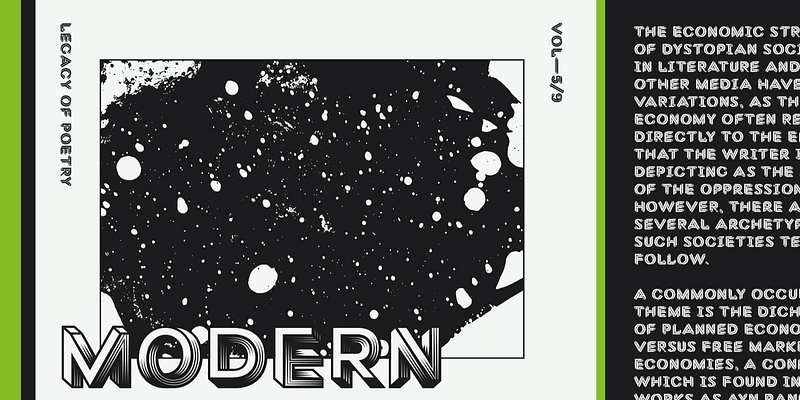
Macula Font Free Download is a bold and visually captivating typeface known for its unique 3D shadow effect that creates a sense of optical illusion and depth. Designed to grab attention, Macula is perfect for posters, album covers, logos, editorial headlines, and any design that calls for a dramatic, dimensional look.
What sets Macula Font Free Download apart is its blend of vintage charm and futuristic twist. The font plays with light and shadow in a way that gives each character a sculptural, almost surreal appearance—making it a standout choice for creative projects that aim to be unforgettable.
Macula works best in large-scale formats where its detailed structure can be fully appreciated. It pairs well with simple sans-serifs or flat graphics, allowing the typeface to be the visual focal point.